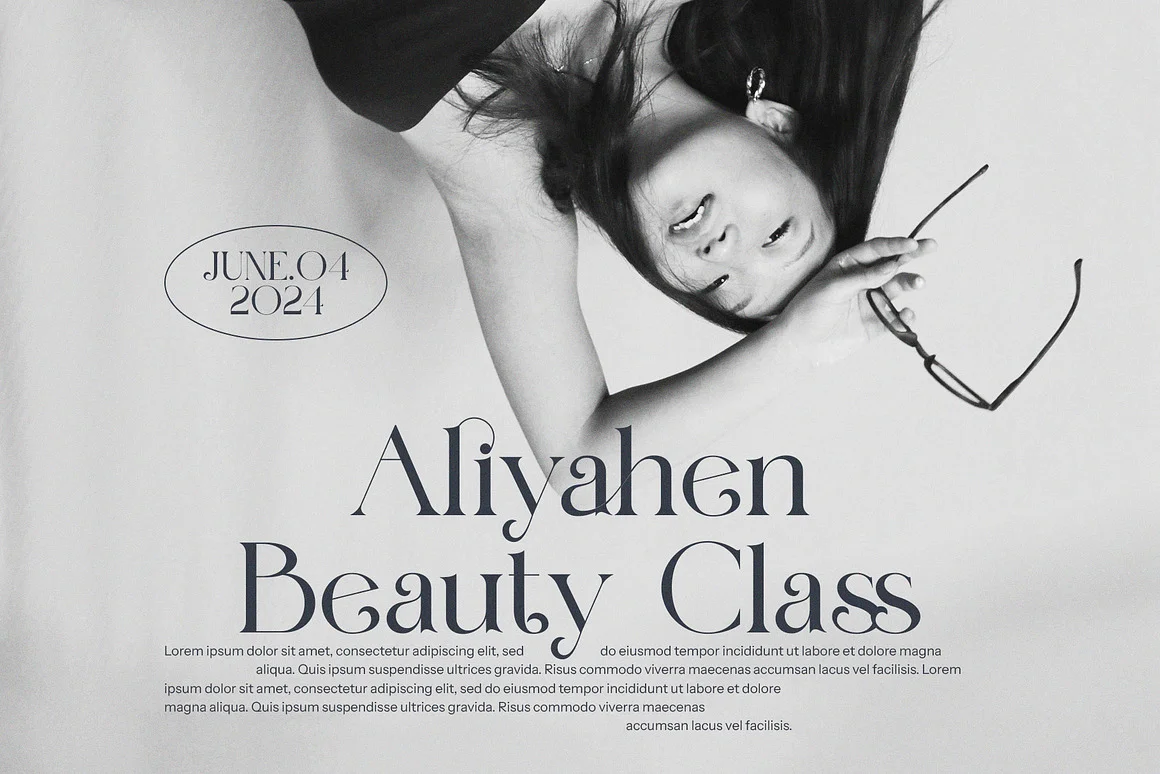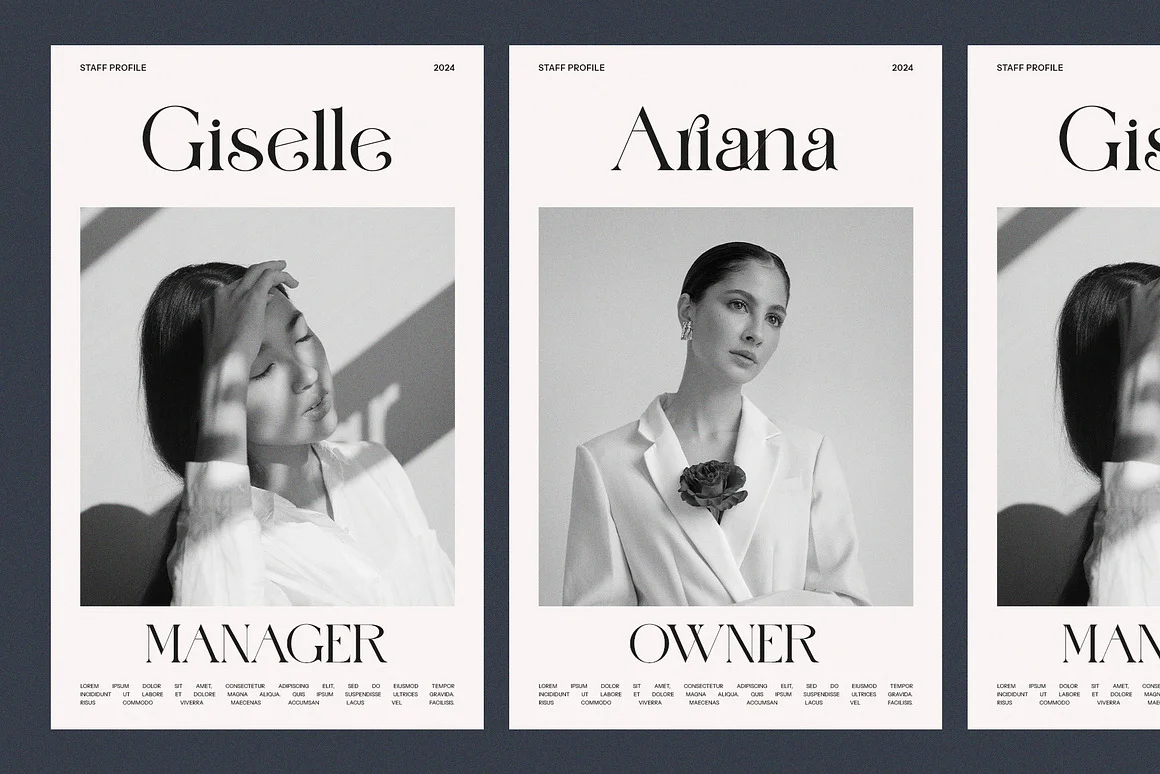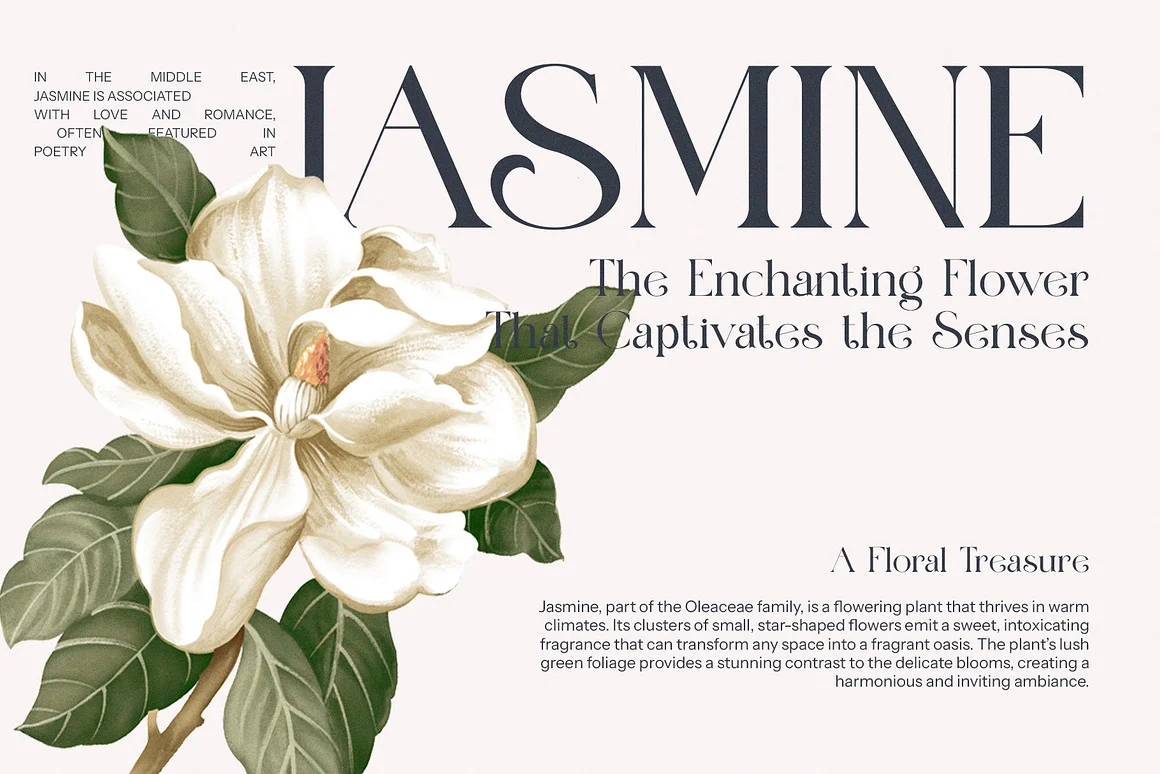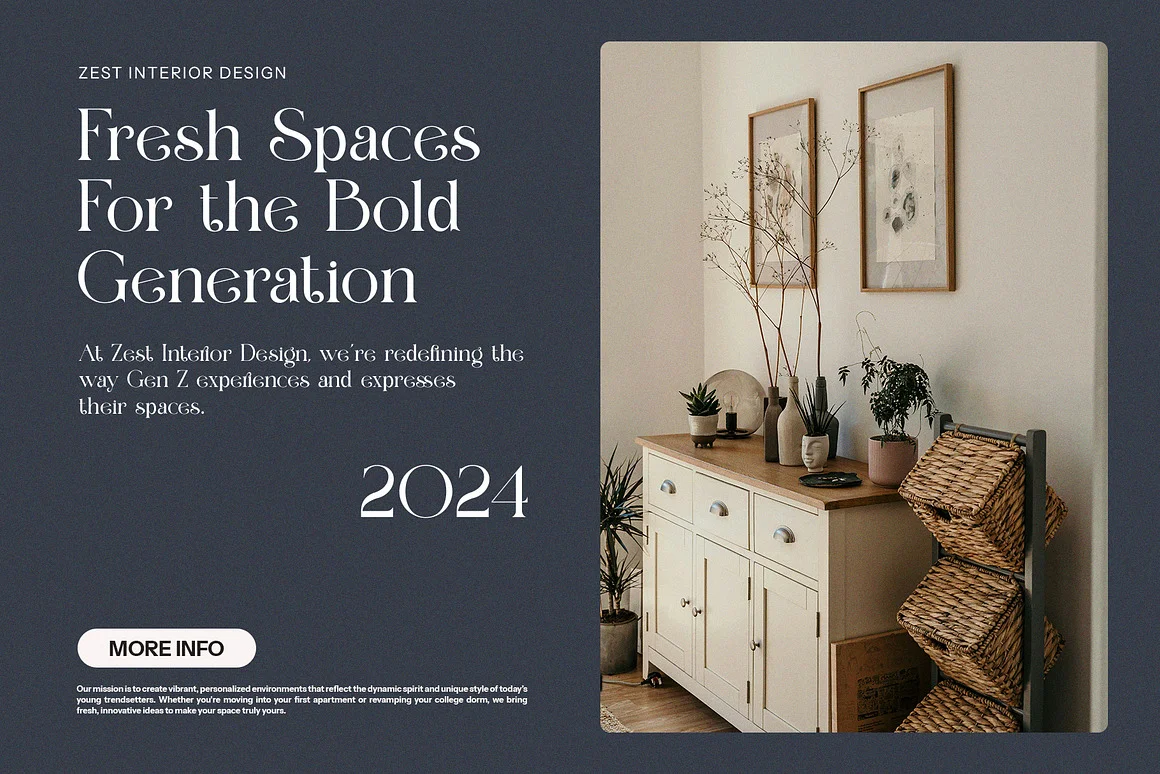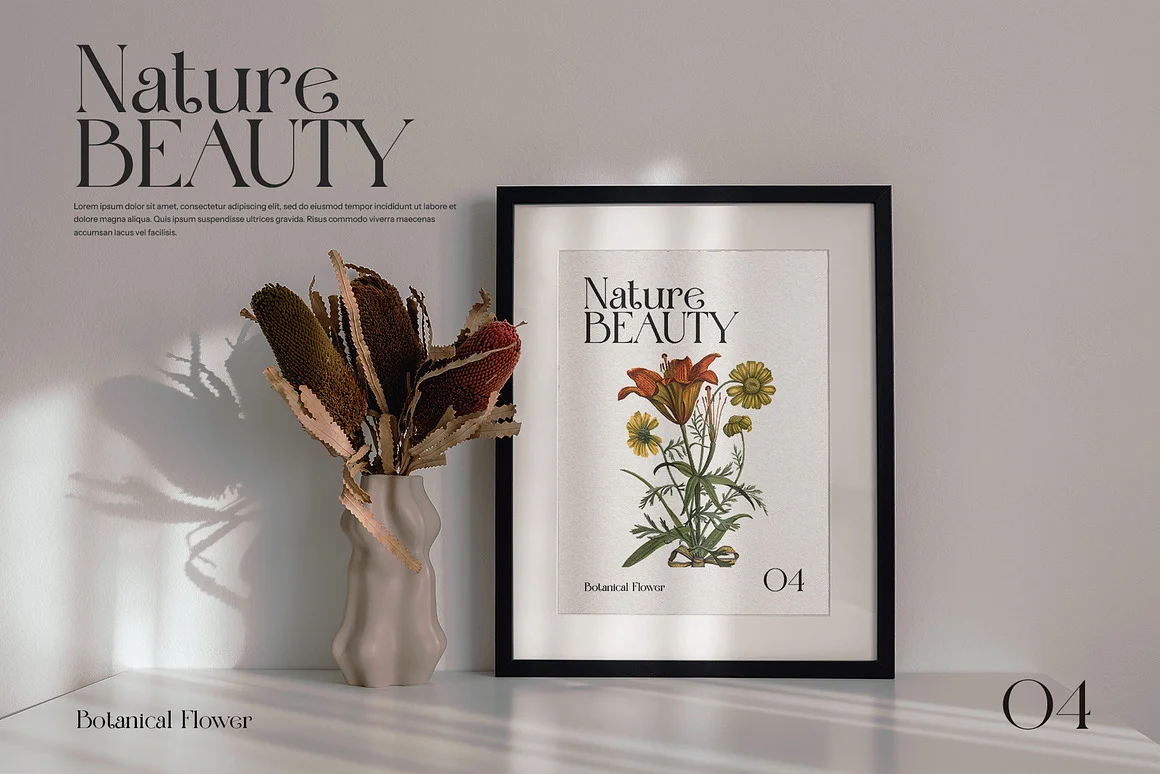
Maglift Elegant Serif Font
Maglift Elegant Serif combines clean construction with expressive detail, making it a dependable asset in any type toolkit.
Its proportions suit a wide range of uses: website headers, printed flyers, restaurant menus, annual reports, and product packaging.